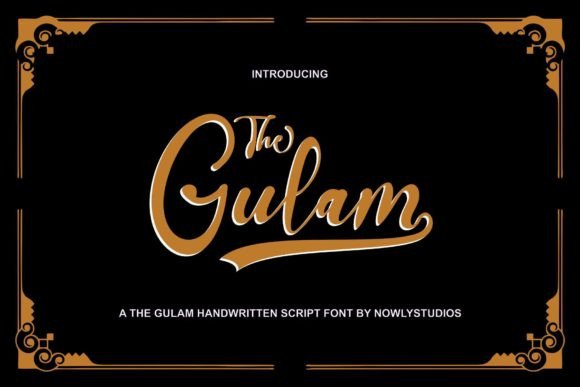
Gulam Font: Elevate Your Designs with Elegance and Sophistication
In the world of typography, fonts play a crucial role in conveying the tone and personality of a design. Among the numerous fonts available, the Gulam font stands out for its exceptional elegance and style. This beautiful script font has gained popularity among designers and artists for its versatility and aesthetic appeal. In this article, we will explore the features, uses, and benefits of the Gulam font, and how it can elevate your designs to new heights.
What is Gulam Font?
Gulam is a stylish and incredibly elegant script font that exudes sophistication and refinement. Its fluid strokes, intricate connections, and beautiful ligatures make it a perfect choice for designs that require a handwritten touch. The font’s unique characteristics and classic appeal have made it a favorite among designers, who use it to create stunning visual content for various applications.
Key Features of Gulam Font
- Elegant Script Style: Gulam font boasts a beautiful script style with flowing strokes and connections, giving it a natural and handwritten feel.
- Intricate Ligatures: The font features intricate ligatures that add to its elegance and sophistication, making it perfect for designs that require a high level of refinement.
- Versatile: Gulam font is highly versatile and can be used for a wide range of design applications, from wedding invitations to business cards, and from quotes to logos.
- Easy to Read: Despite its elegant style, the Gulam font is easy to read, making it suitable for both digital and print designs.
Uses of Gulam Font
The Gulam font is an excellent choice for various design projects that require a touch of elegance and sophistication. Here are some popular uses of the Gulam font:
Popular Use Cases
- Wedding Invitations: The Gulam font is a popular choice for wedding invitations, as it adds a touch of romance and elegance to the design.
- Thank You Cards: The font’s elegant style makes it perfect for thank you cards, which require a personal and heartfelt touch.
- Quotes: Gulam font is ideal for quotes, as its flowing strokes and connections add a level of sophistication to the text.
- Greeting Cards: The font’s versatility makes it suitable for various types of greeting cards, including birthday cards, anniversary cards, and more.
- Logos: Gulam font can be used to create stunning logos that require a touch of elegance and sophistication.
- Business Cards: The font’s professional and elegant style makes it perfect for business cards, which require a level of refinement and sophistication.
Benefits of Using Gulam Font
The Gulam font offers several benefits to designers and artists, making it a popular choice for various design projects. Here are some of the benefits of using the Gulam font:
Advantages of Gulam Font
- Unique and Distinctive: The Gulam font is unique and distinctive, allowing designers to create visual content that stands out from the crowd.
- Elegant and Sophisticated: The font’s elegant and sophisticated style makes it perfect for designs that require a high level of refinement.
- Versatile: Gulam font is highly versatile and can be used for a wide range of design applications, making it a valuable addition to any designer’s toolkit.
Tips for Using Gulam Font Effectively
To get the most out of the Gulam font, here are some tips for using it effectively:
Best Practices for Using Gulam Font
- Use it Sparingly: Use the Gulam font sparingly to avoid overwhelming the design. It works best when used as an accent font or for highlighting specific text elements.
- Pair it with Other Fonts: Pair the Gulam font with other fonts to create a visually appealing contrast. A simple sans-serif font or a bold serif font can complement the Gulam font nicely.
- Adjust Font Size and Color: Adjust the font size and color to create a clear hierarchy of information and to draw attention to specific text elements.
- Experiment with Ligatures: Experiment with the font’s ligatures to add a touch of elegance and sophistication to the design.
In conclusion, the Gulam font is a beautiful and elegant script font that can elevate your designs to new heights. Its unique characteristics, versatility, and aesthetic appeal make it a popular choice among designers and artists. Whether you’re designing wedding invitations, thank you cards, quotes, or logos, the Gulam font is an excellent choice for adding a touch of sophistication and refinement. By following the tips outlined in this article, you can use the Gulam font effectively and create stunning visual content that leaves a lasting impression.